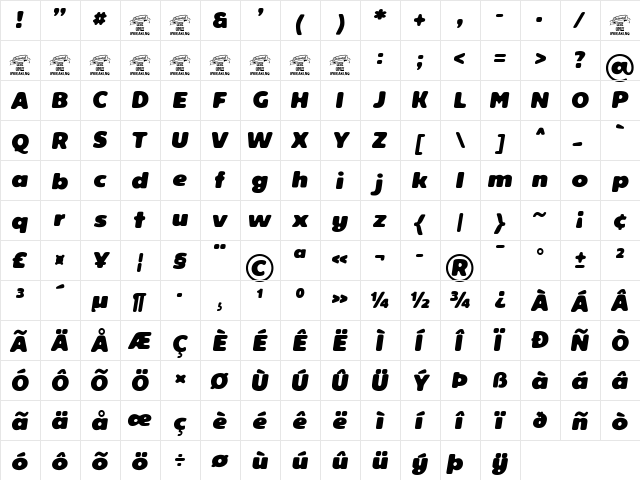
Reeler Personal Use Only Regular
| Foundry | M害 Greb䣫 |
| Designer | Noah Kinard and M害 Greb䣫 |
Design Context for Reeler Personal Use Only Typeface
Reeler Personal Use Only is a composed and adaptable typeface that performs quietly and consistently across a wide range of design contexts.